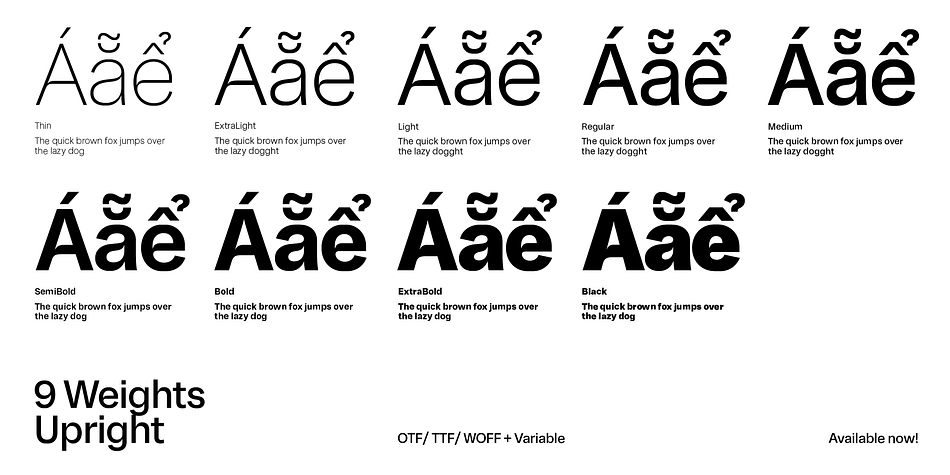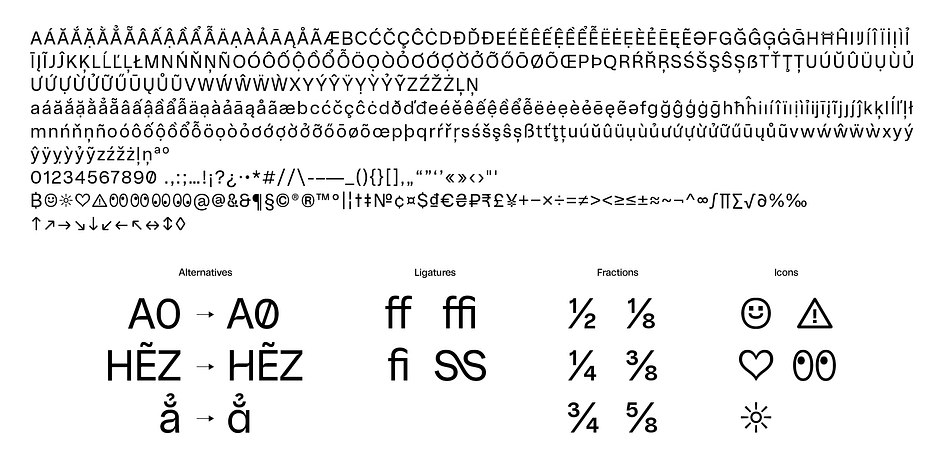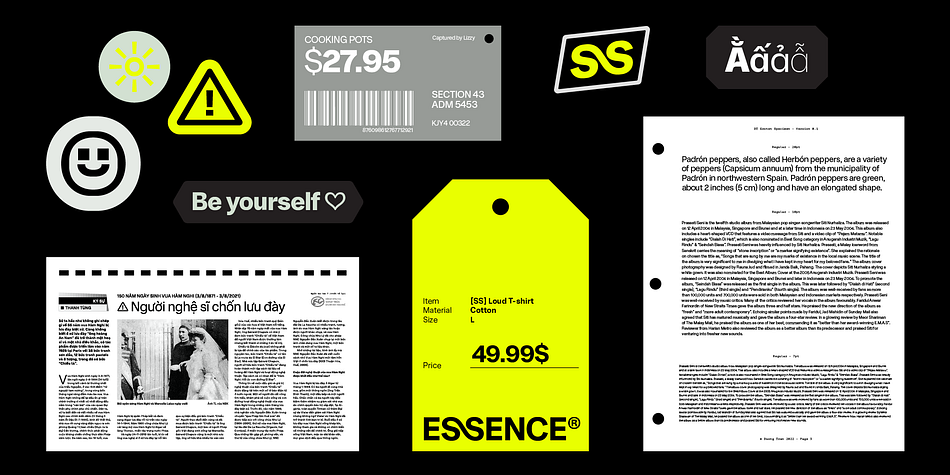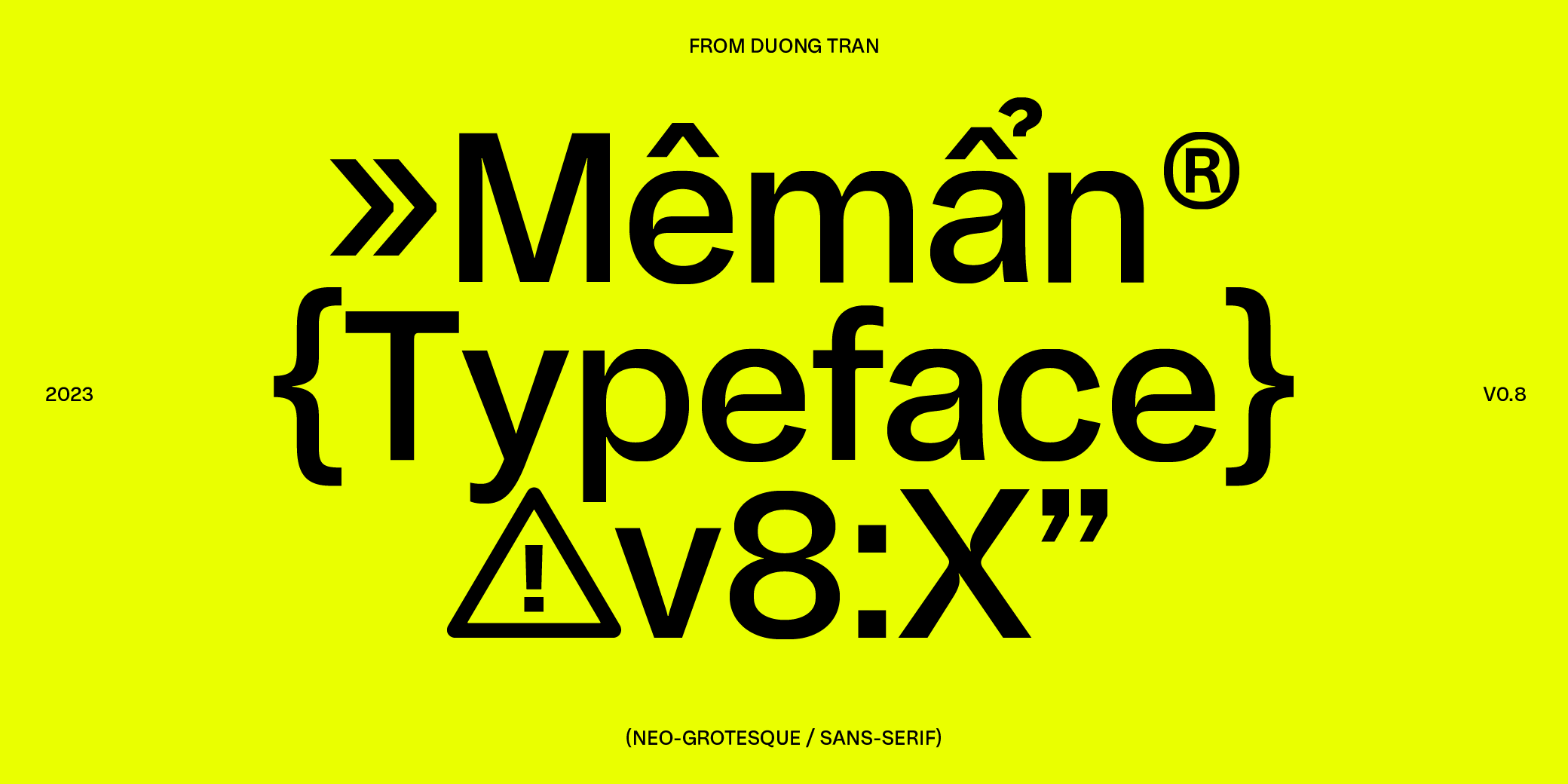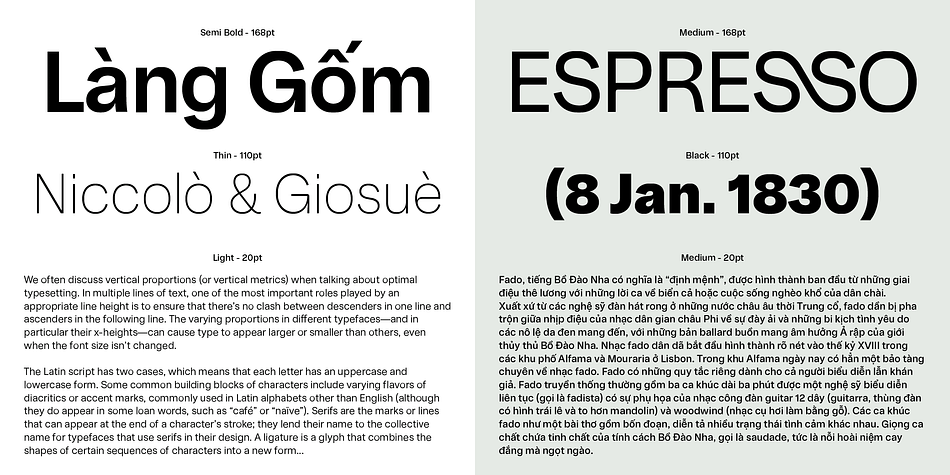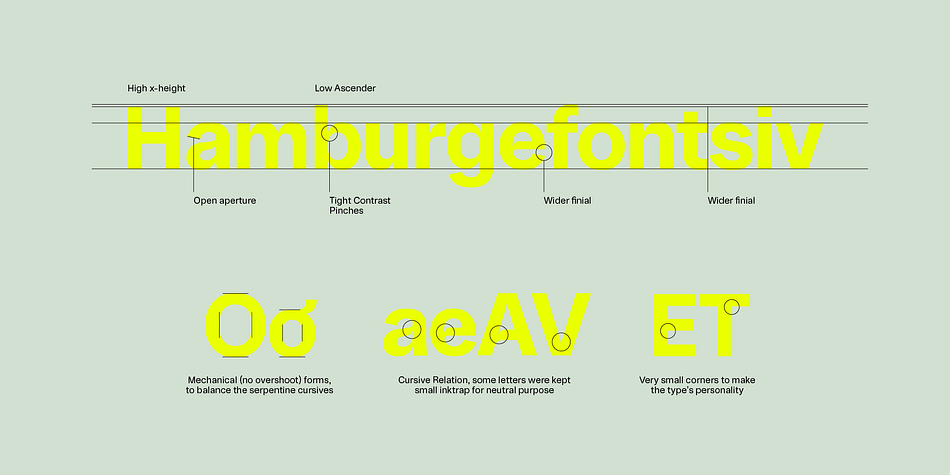
DT Meman
DT Meman is a sans serif font family. This typeface has ten styles and was published by DType.
Meman is a practical sans serif that was enthusiastic about adding details to have more personality compared to a neo-grotesque typeface. The typeface was crafted between the concepts of mechanical oval forms and serpentine curves, with the help from open terminals, contrast joints. These 2 concepts are very different, but they balanced each other to help remain the neutral feeling as a whole. Many details are optimized so that on small scales, Meman has nothing special. But when use on bigger scales, letters are revealed to have been dived in visual flourishes, such as the “e”. Also, to avoid broken fragments and remain neutral, some details were converted to alternatives.
Meman has 10 upright weights (from Thin to Black), and some OpenType features like fractions, ligatures, custom decorative icons, and alternatives for “A”, “E”, “V”, “Z”, ... or “a”. There are more than 660 glyphs, which support a wide range of Latin languages, including Vietnamese. For usability, the typeface was balanced and versatile, it can be pinned up as a headline or logo, and can still blend in a small paragraph.